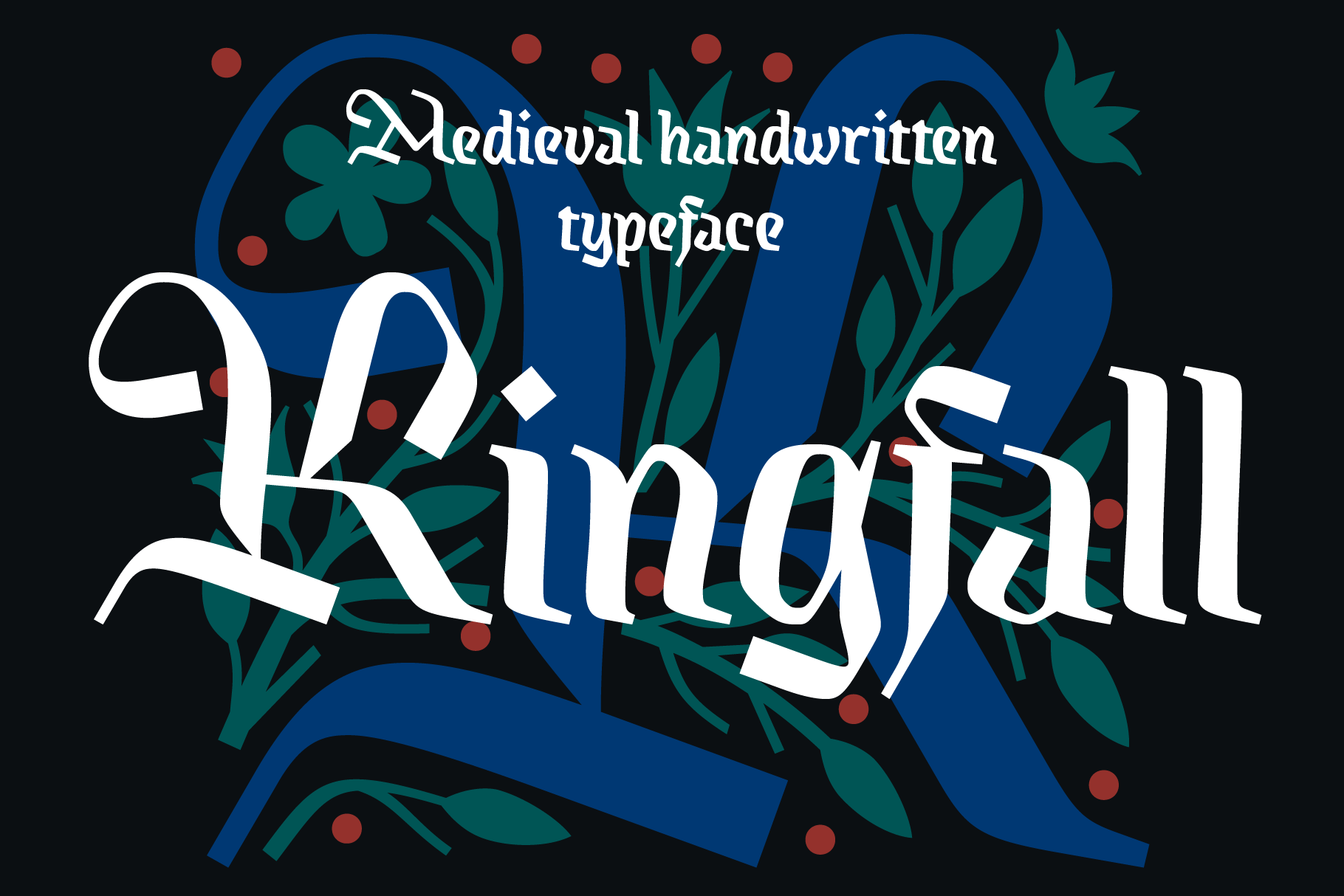
Kingfall font
Kingfall is a handwritten medieval typeface sketched with a flat calligraphic nib. Its design is built on the contrast between small condensed lowercases and large decorative uppercases that can also function as initials. The shape of the letters has numerous rough bends and hard edges, as if the royal blacksmith took a strip of iron and shaped it with a hammer. At the same time, the direction of strokes avoids geometric rectilinearity, thereby adding a human touch to the letterform.
Initials: Kingfall Initials is a font family style that contains a decorated versions of the uppercase letter shapes only.
Optical Size: The typeface is represented by two optical sizes: Blessed (high contrast, sharp, for large text size), Dark (medium contrast, rough, for small text size).
Stylistic Set 2 “Decorations”: The font contains 22 elements for book chapter decoration. There are two ways to apply them: 1. Open the Glyphs panel in the graphics editor and select the decorative element manually. 2. Activate Stylistic Set 2 and type the keywords from :decoration1: to :decoration22: in the text.
Stylistic Set 3 “Classic Y”: The letter “Y” (including diacritical versions) is replaced with more familiar letterform.
Stylistic Set 4 “Descended epsilon”: The lowercase greek epsilon is replaced with its handwritten version that is descended under the baseline.
Stylistic Set 5 “Long tail tse shcha”: The Cyrillic letters “ц” and “щ” get long tails bent under the letter. Contextual Alternates: fa ra ru ry гa is
Stylistic Set 6 “Alternate be”: The Cyrillic letters “б” is replaced with its alternate form.
Standard Ligatures: fi fl fb ff fh fj fk ffi ffl ffb ffh ffj ffk iï ïï